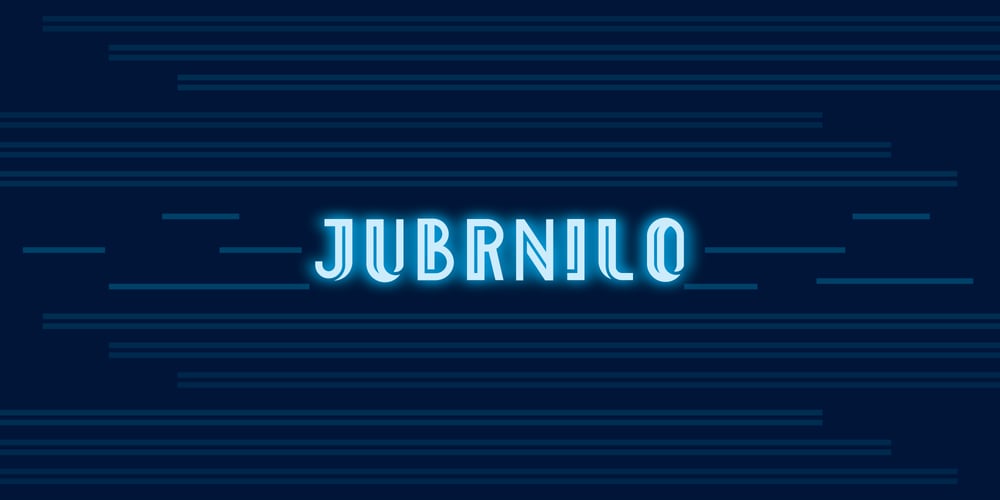
Jubrnilo Font Family was designed by Mohammad Teguh and published by Starone Project. Jubrnilo contains 1 styles and family package options. We are introducing and delivering Jubrnilo Font to You. Retro sci fi font with lined font and modern touch also. It perfect for headline title and for text of logo. This font inspired by 1970 and 1980’s stylistic font. This font could be the perfect solution when you want to give a retro touch to your designs or art work.